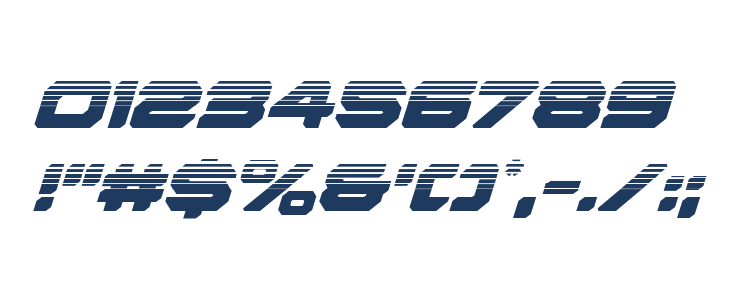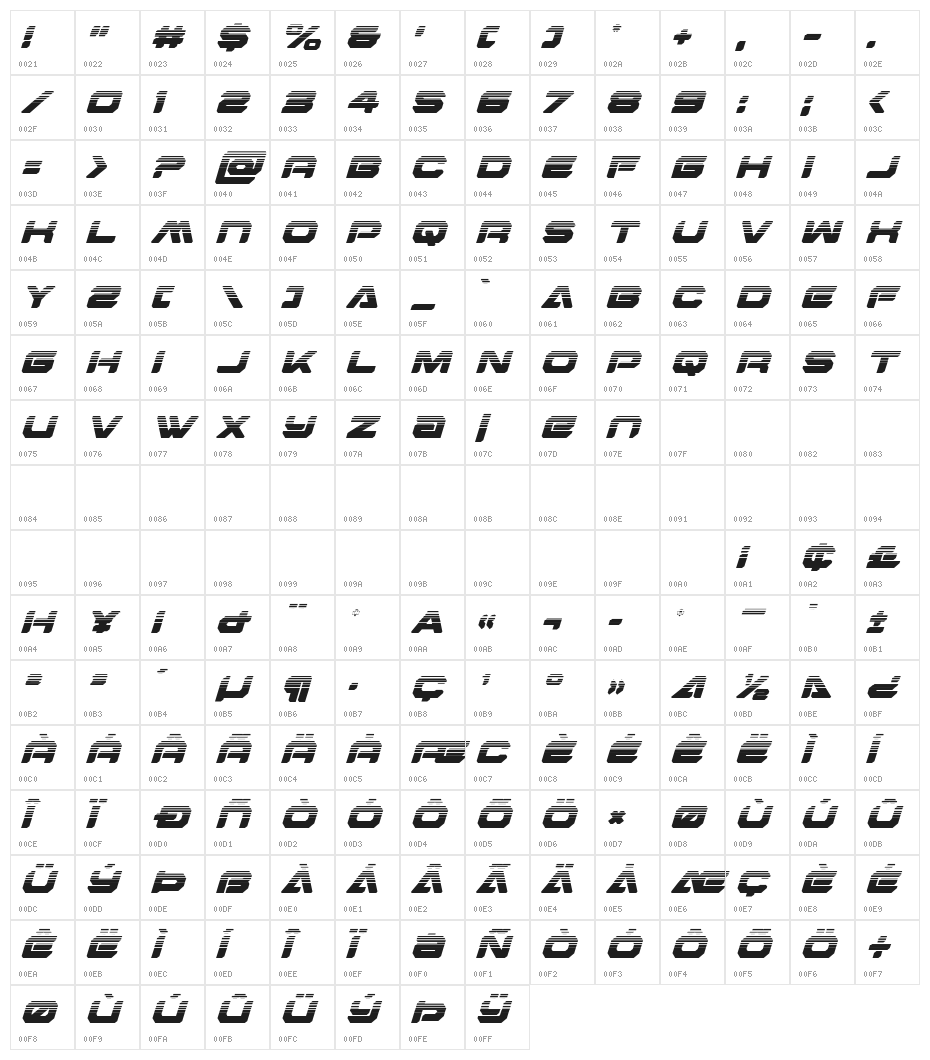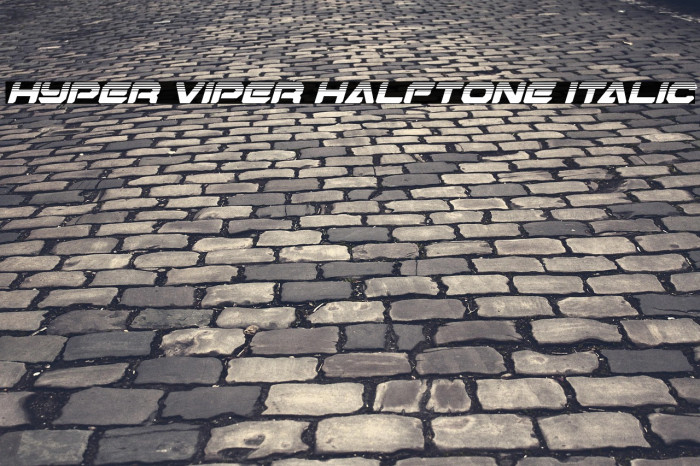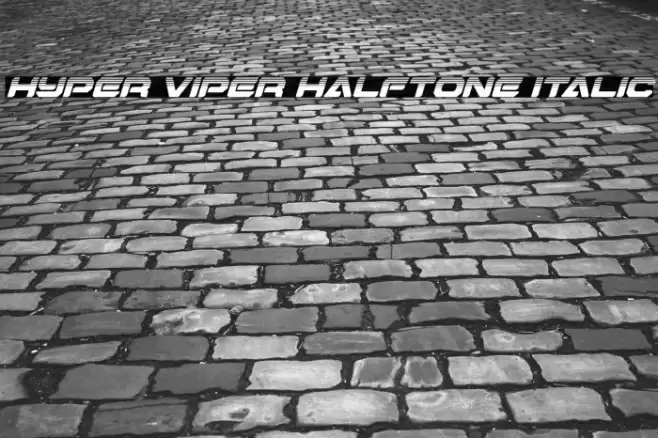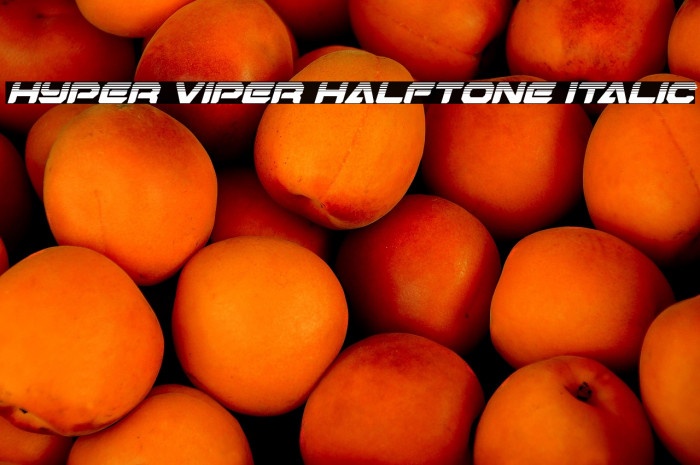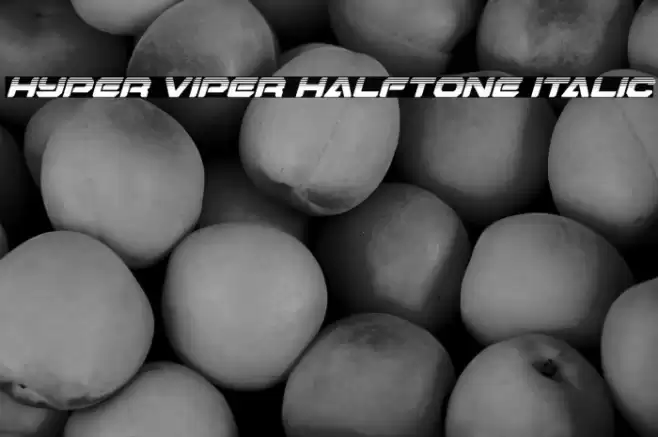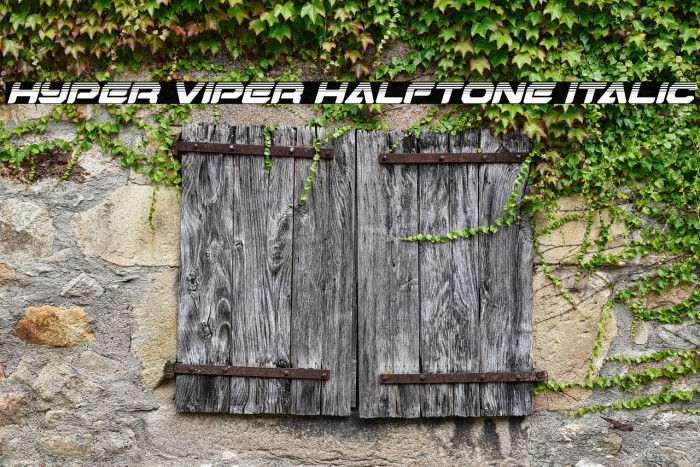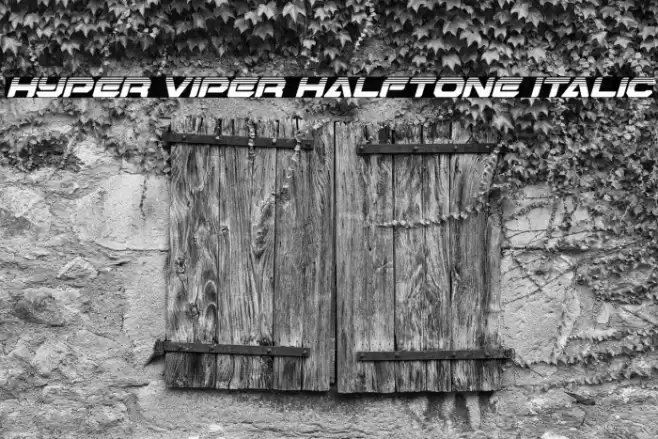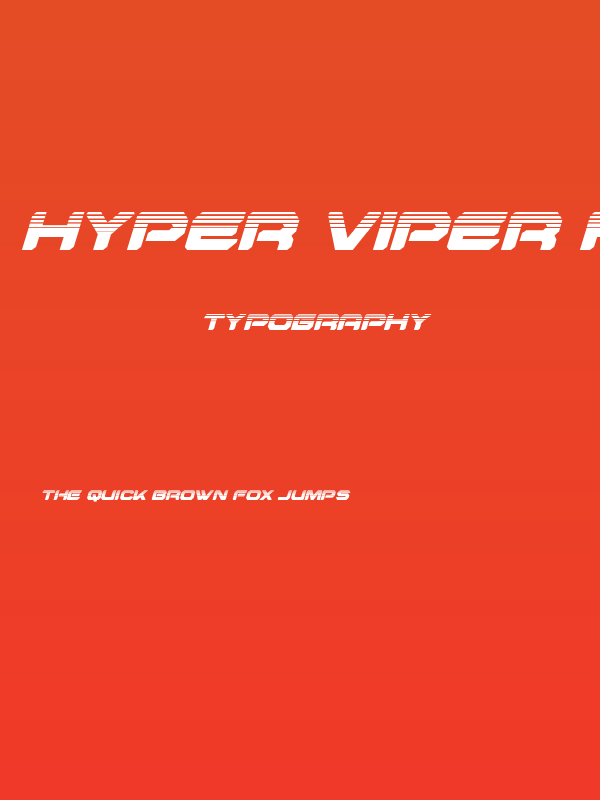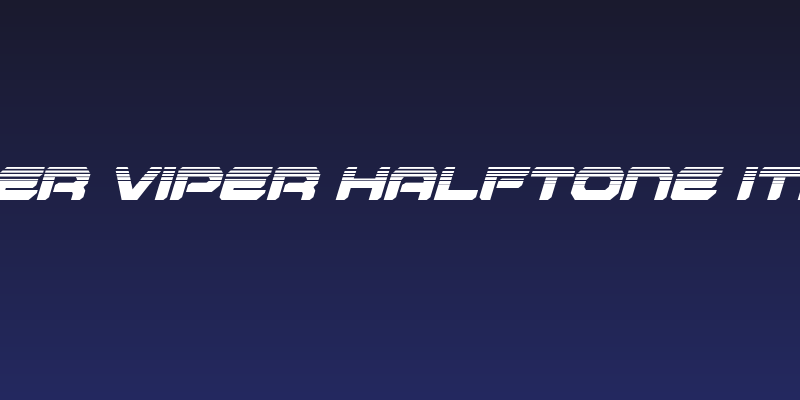
Hyper Viper Halftone Italic Font
Hyper Viper Halftone Italic Description
This font features a bold, futuristic design with a halftone effect that gives it a dynamic, high-tech appearance. The characters are italicized, adding a sense of motion and speed. The uppercase and lowercase letters maintain a consistent style, with sharp angles and a distinct geometric structure. The numbers and special characters are equally stylized, ensuring uniformity across all glyphs. The font's unique halftone pattern creates a layered look, enhancing its visual impact and making it ideal for attention-grabbing designs.